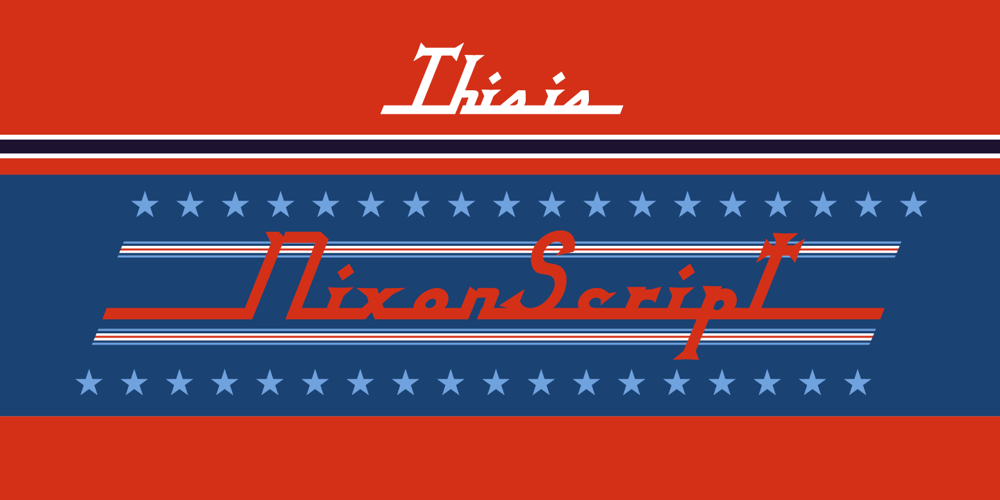
Nixon Script
Nixon Script font
Nixon Script Font Family was designed by Jonathan Barnbrook and published by Barnbrook Fonts. Nixon Script contains 2 styles and family package options. NixonScript is a display typeface inspired by the typographic emancipation given voice by 1950s and ’60s north American vernacular type. NixonScript’s starting point was lettering found on a 1960s camera found in a Chicago junk shop, but its development saw it transformed from a punchy sans-serif to a more thoughtful serif, with a lowered x-height and a vibe of almost priestly piousness. Rather than a simple regular italic, a bold italic is offered. During its development, the regular version seemed almost placid but with the double emphasis of bold and italic, NixonScript gained an energetic, self-congratulatory form.